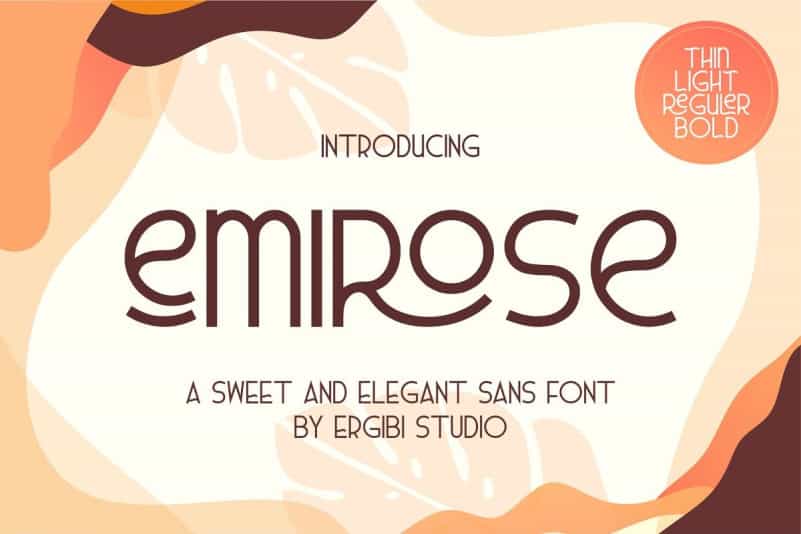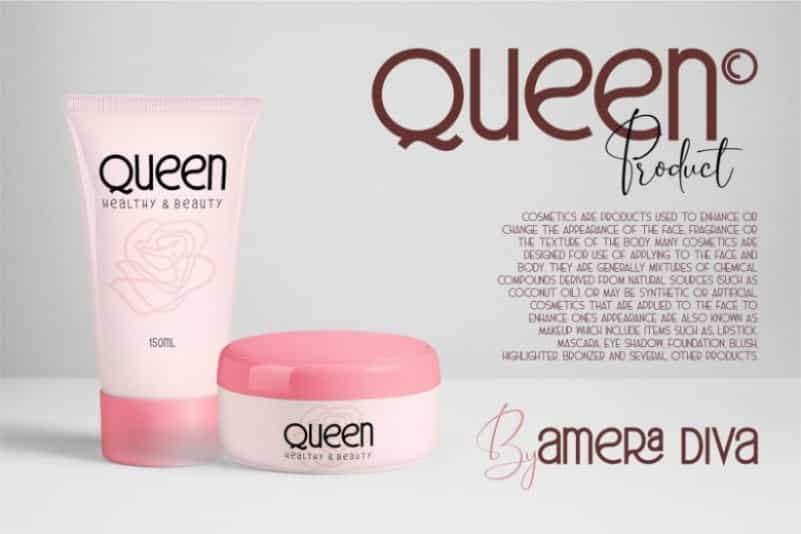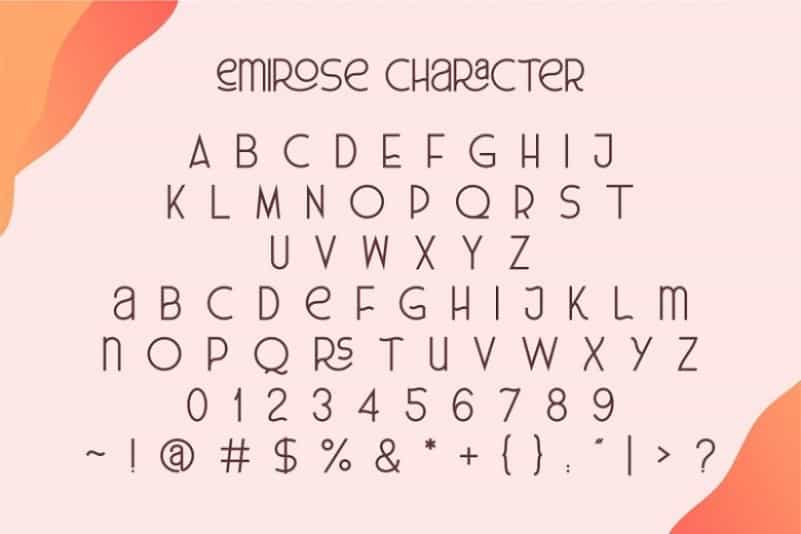
Emirose Sans, kinda Sweet & Elegant Fonts with a lot of ligature styles. Emirose Sans consists of 4 weights: Thin, light, and bold styles combined with the alternative letters that are cute and classy look very well for your work such as logos, brands, packaging, posters invitations headlines etc. to create designs which are more unique and versatile wider in range.